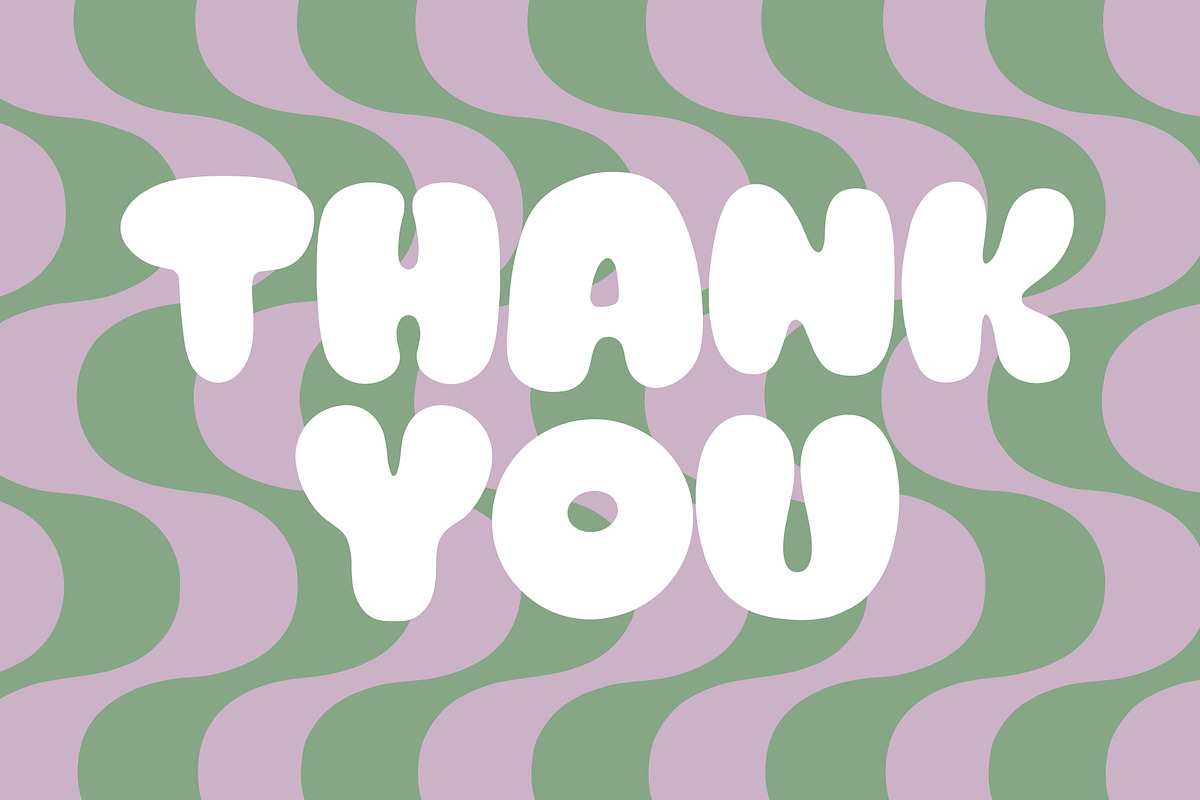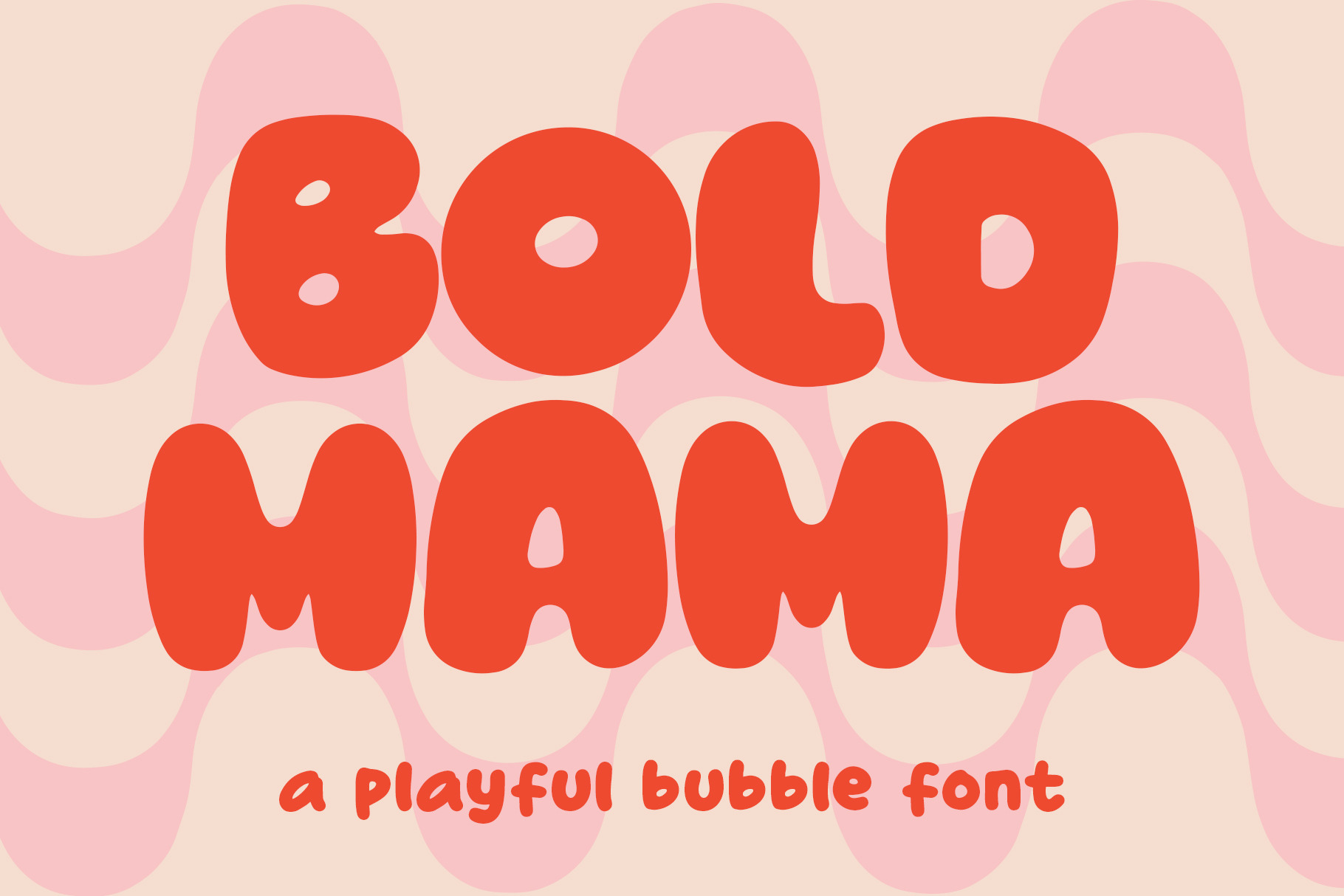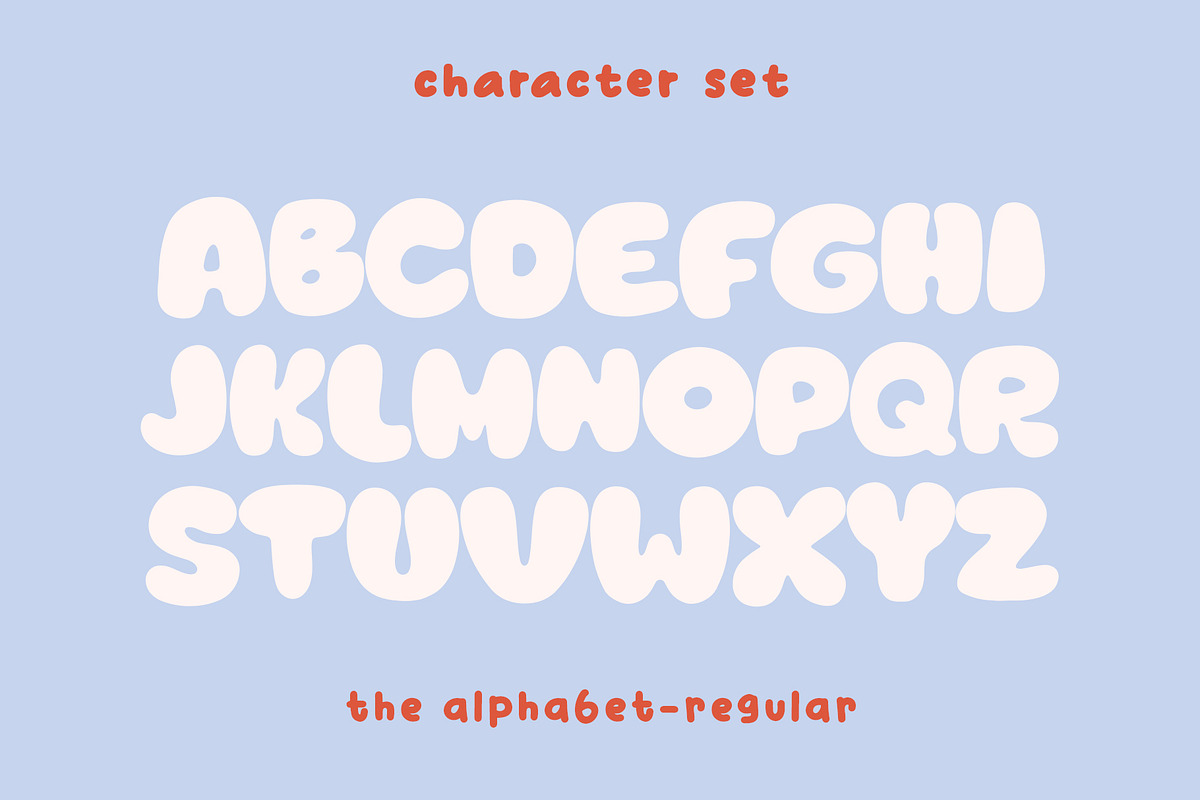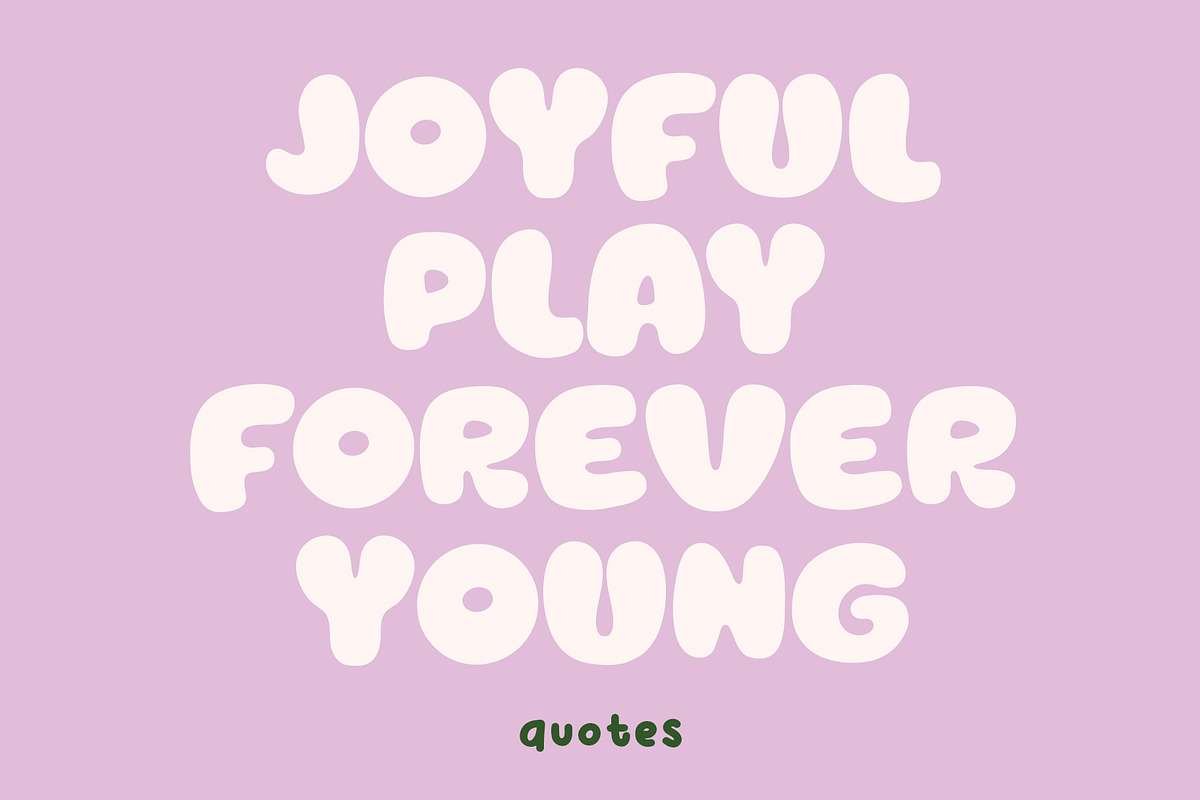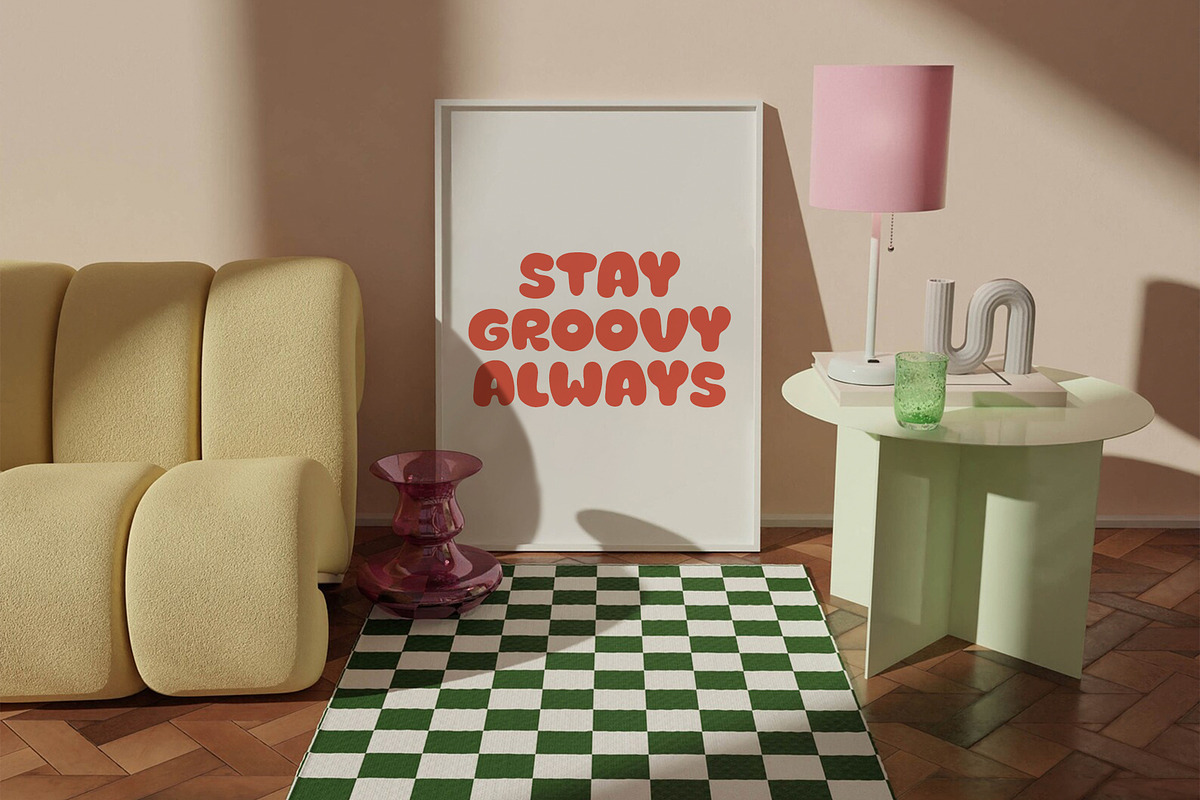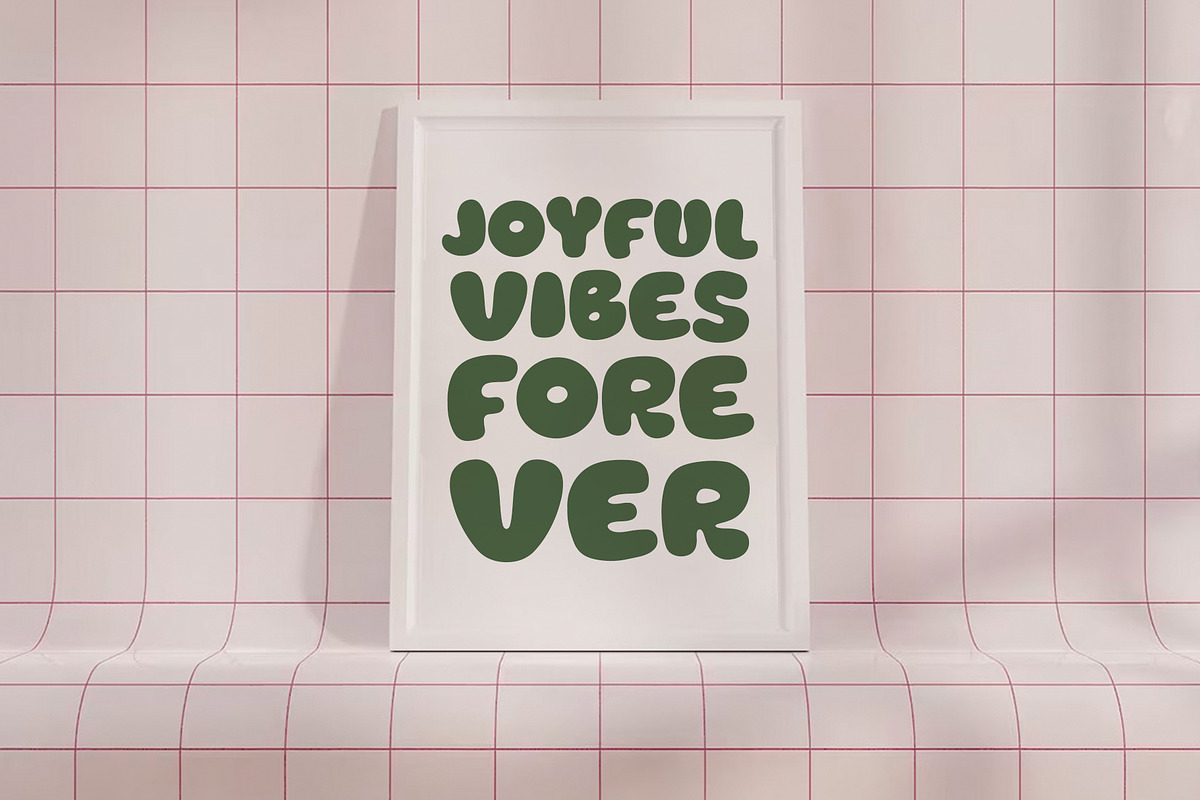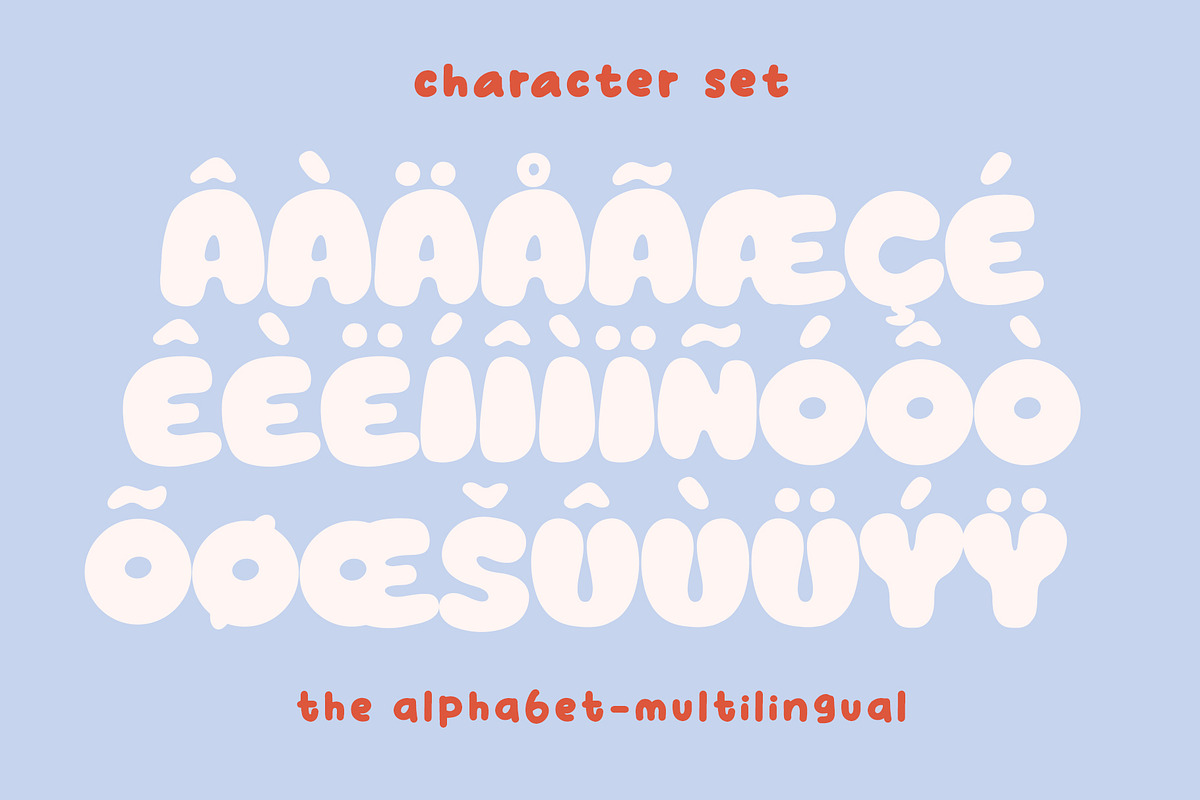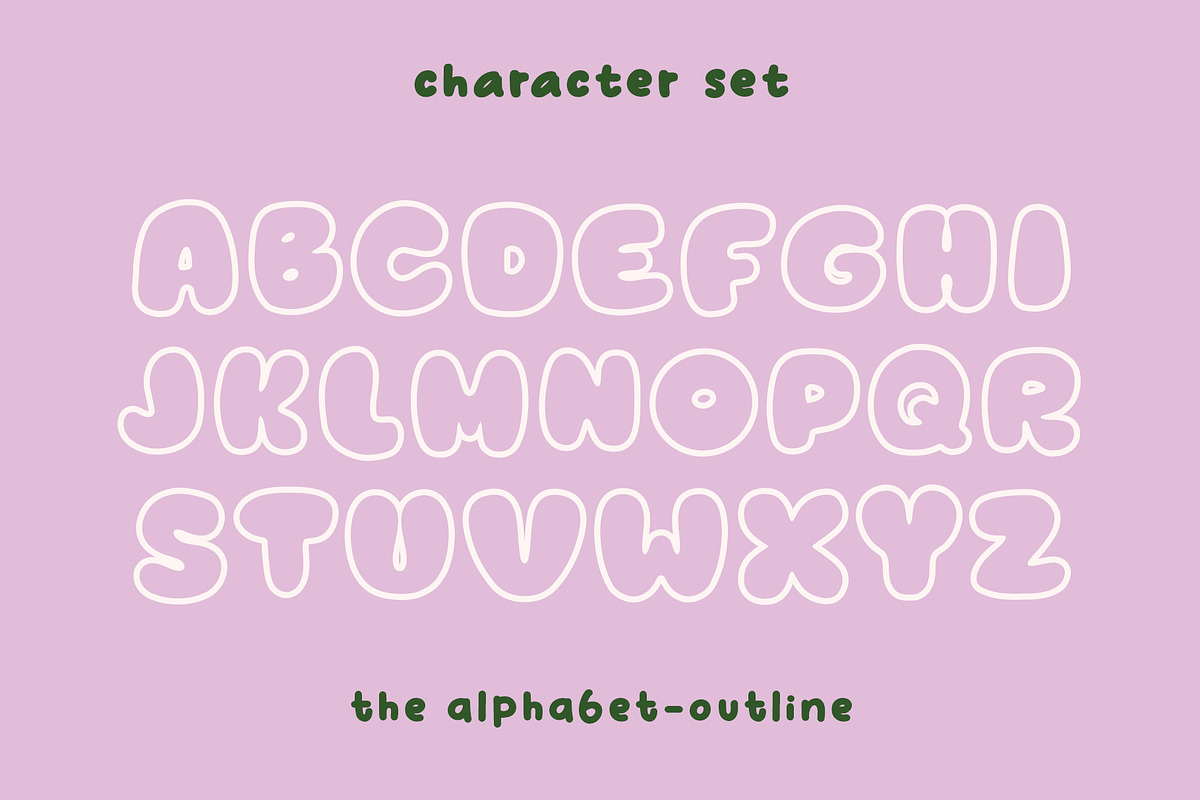
Bold Mama - Playful Font
Bold Mama is a lively and contemporary sans-serif font that exudes a playful charm. With its bold and fat typeface style, this font makes a confident statement while maintaining a whimsical undertone. The rounded edges add a touch of friendliness to each character, enhancing the overall approachability of the font. This typeface available in SVG format, compatible with advanced tools such as Cricut and Glowforge, and for use in Procreate. This font is also included in Accent or Multilingual Font.
Perfect for eye-catching headlines, branding, or any design project that requires a bold and energetic aesthetic, Bold Mama effortlessly combines a strong presence with a sense of fun. Whether used in print or digital media, this font captivates attention and infuses a sense of dynamic personality into your creative endeavors.